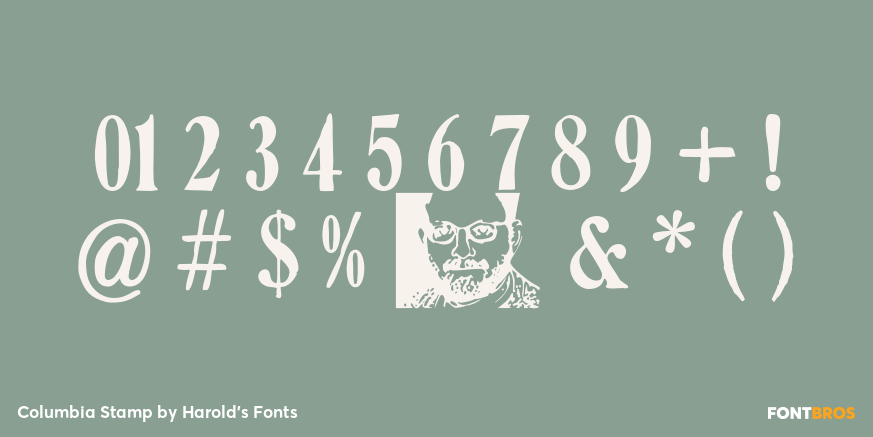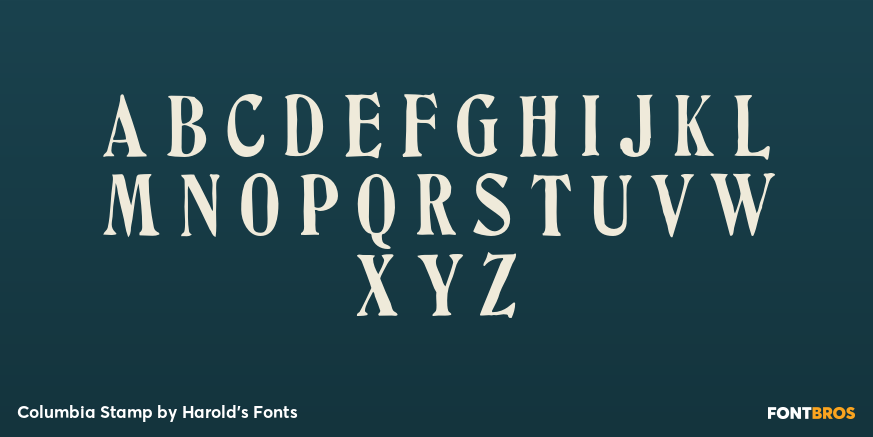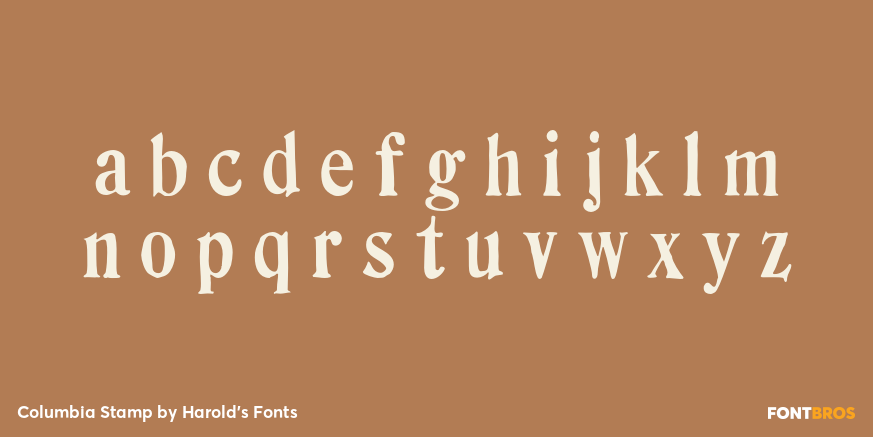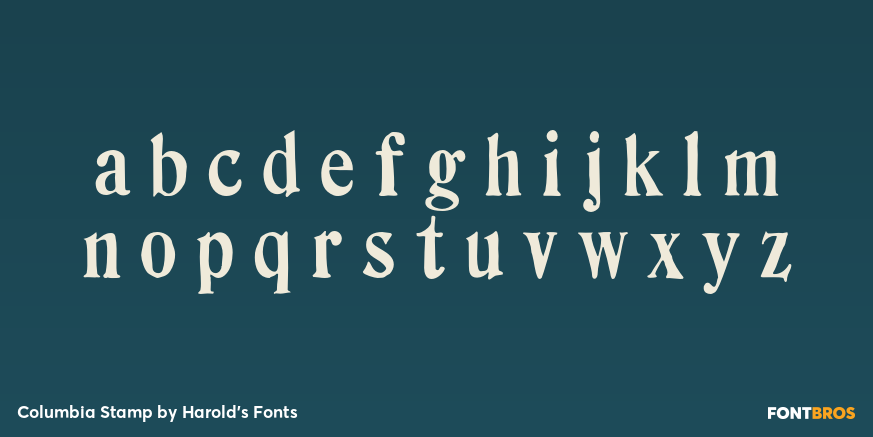
Columbia Stamp
Font Family by Harold's Fonts
Columbia Stamp was suggested by my correspondent Marsha, who sent me scans and lots of encouragement. It's based on her set of vintage rubber stamps and has a smoother edge and straighter alignment than my other stamp fonts, suggesting letterpress.